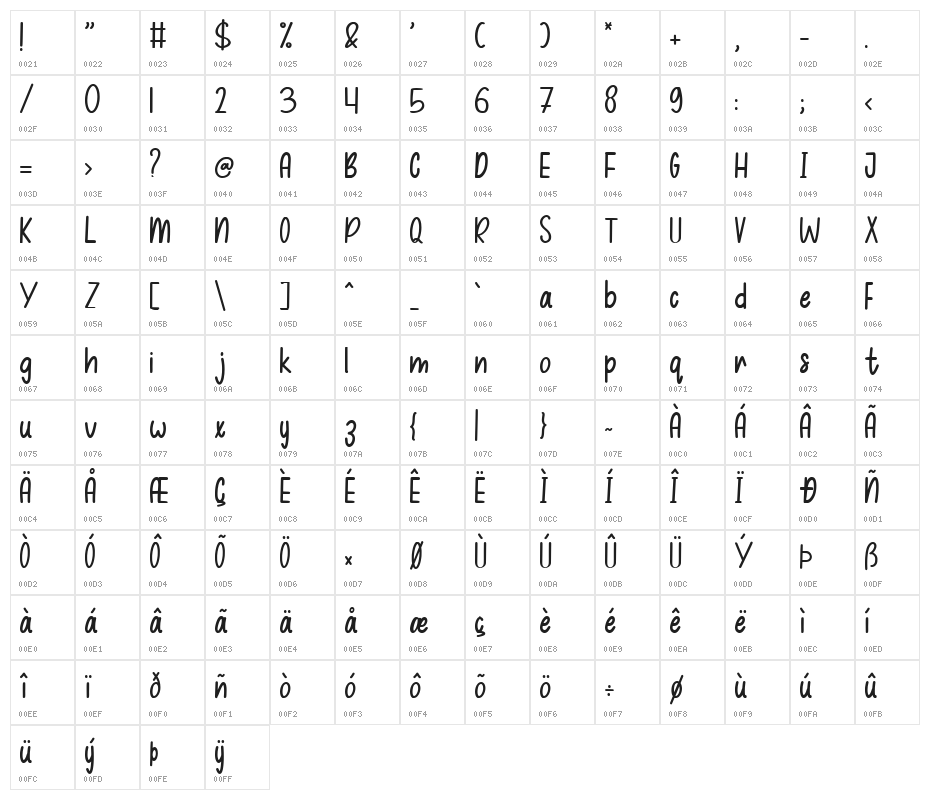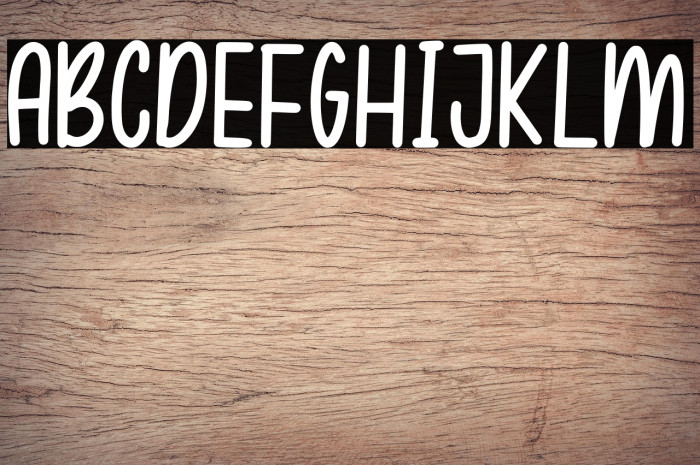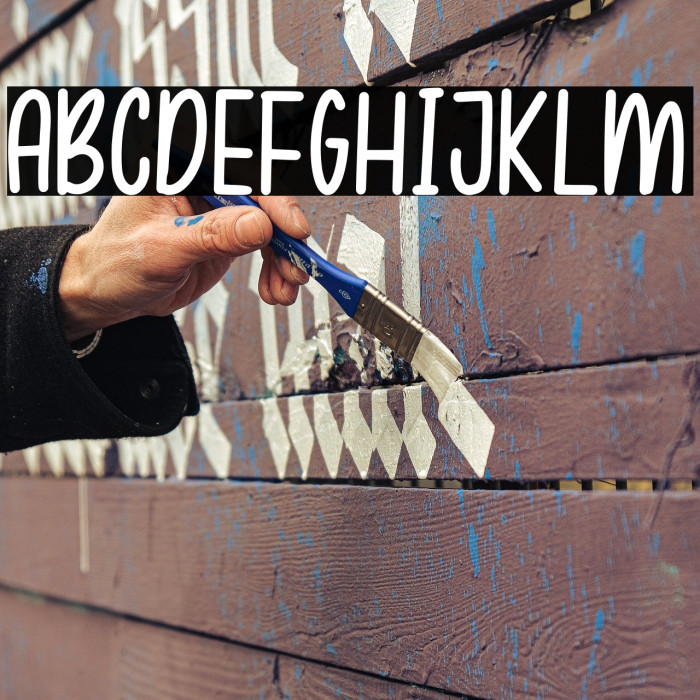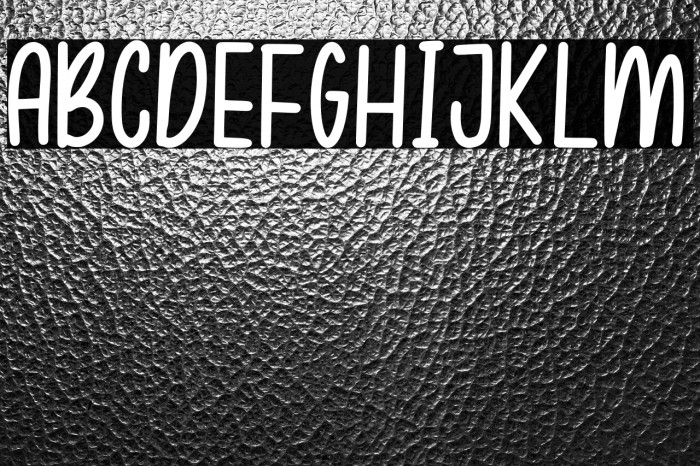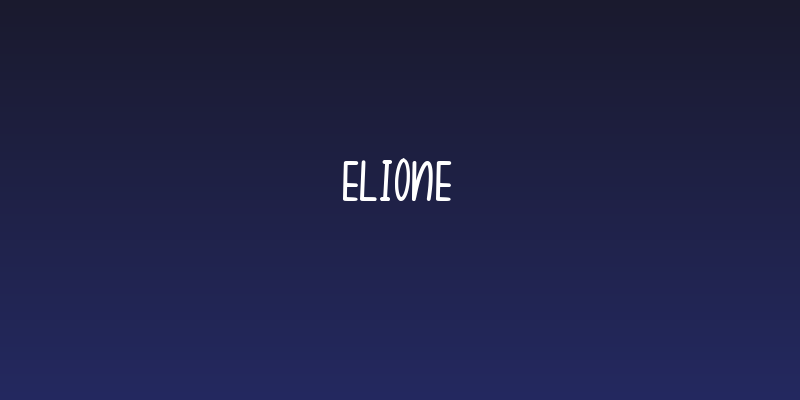
Elione Font
Elione Description
This font features a playful and casual handwritten style with smooth, rounded edges and a consistent flow. The characters are slightly slanted, giving it a dynamic and lively appearance. The uppercase letters are bold and prominent, while the lowercase letters maintain a friendly and approachable look. The numerals are clear and easy to read, complementing the overall style. Special characters are well-integrated, maintaining the font's cohesive aesthetic. This font is perfect for projects that require a personal touch or a fun, informal vibe.
| Proposed Projects | Ideal for greeting cards, children's books, social media graphics, and informal branding. |